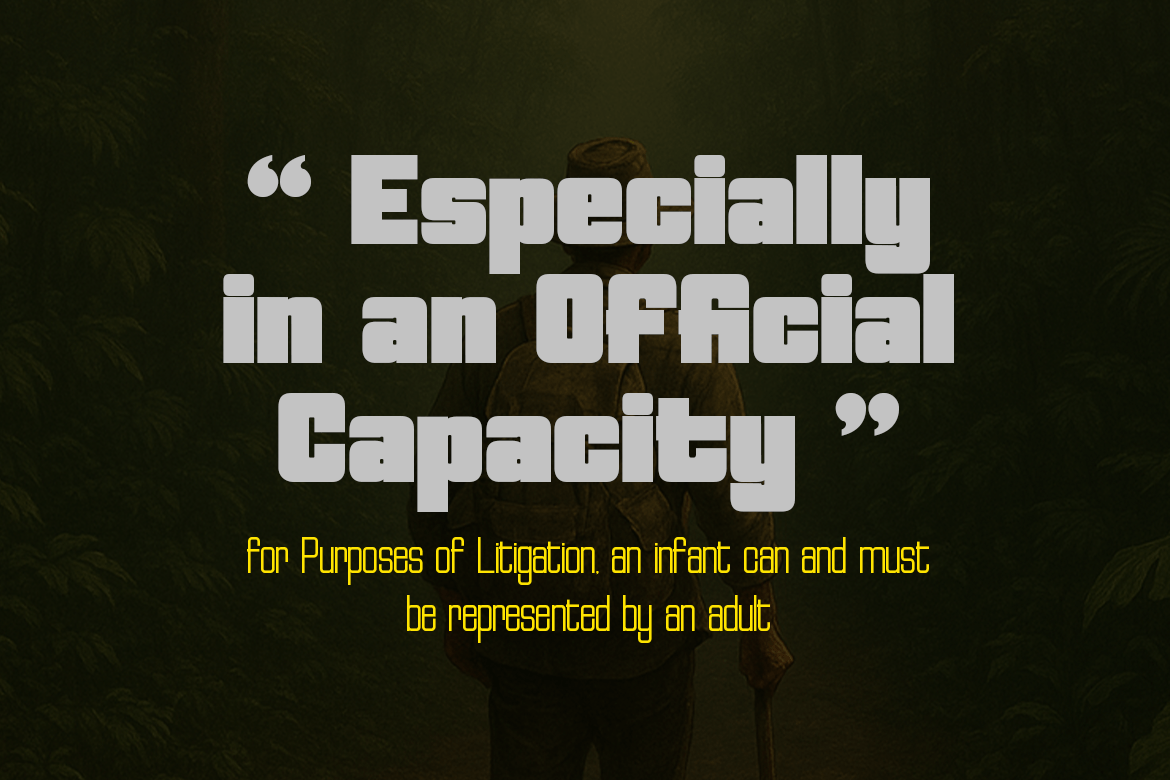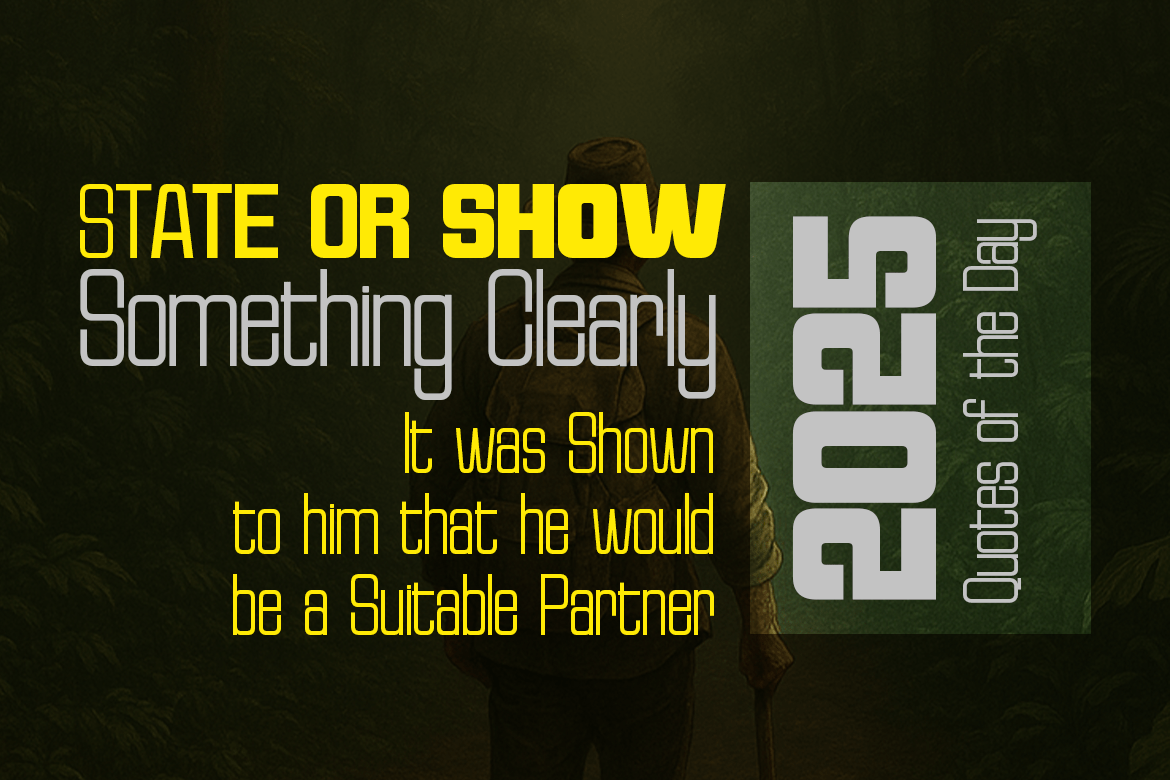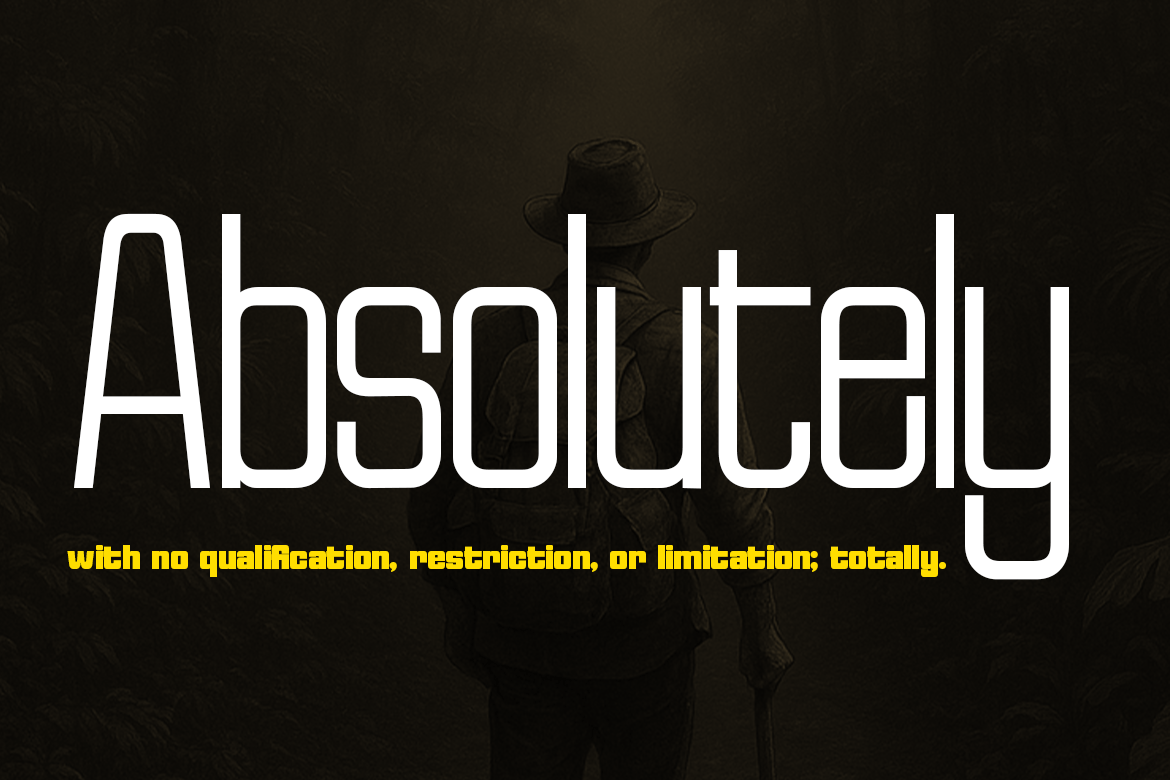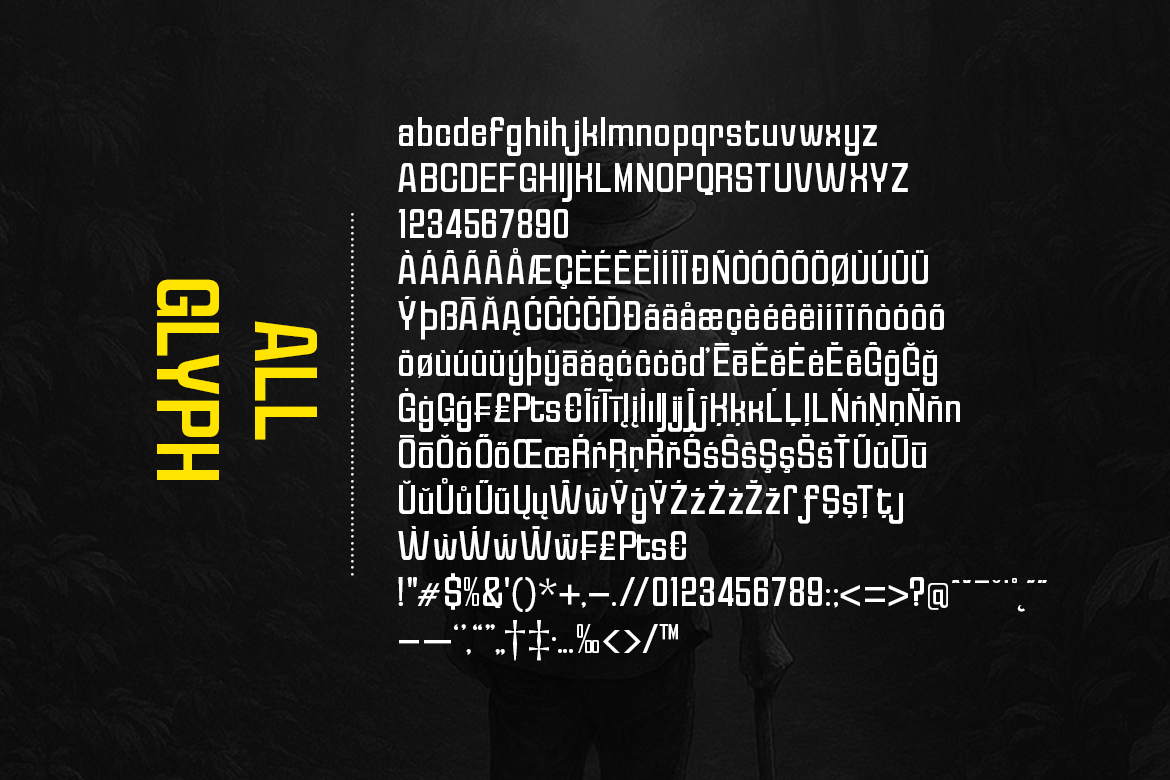
Reflect of Strictly Semi Condensed
Reflect of Strictly Semi Condensed — 12 Upright Weights
Reflect of Strictly Semi Condensed offers a more comfortable reading experience than the condensed version while keeping a clean, technical, and disciplined aesthetic. The slightly wider character set allows the font to breathe, improving legibility while preserving a controlled, professional tone.
This width strikes a perfect balance between efficiency and visual clarity, making it suitable for both display and functional text.
Perfect For
- Magazine headers and subheads
- Branding systems requiring a modern condensed feel
- Web interfaces and app UI
- Titles that need subtle compactness
- Posters and visual identities
All 12 upright weights, from Thin to Extra Black, ensure consistent flexibility across various layout needs, giving designers powerful tools for creating modern, elegant, space-conscious typography.
The Reflect of Strictly Semi Condensed font family includes 344 glyphs.